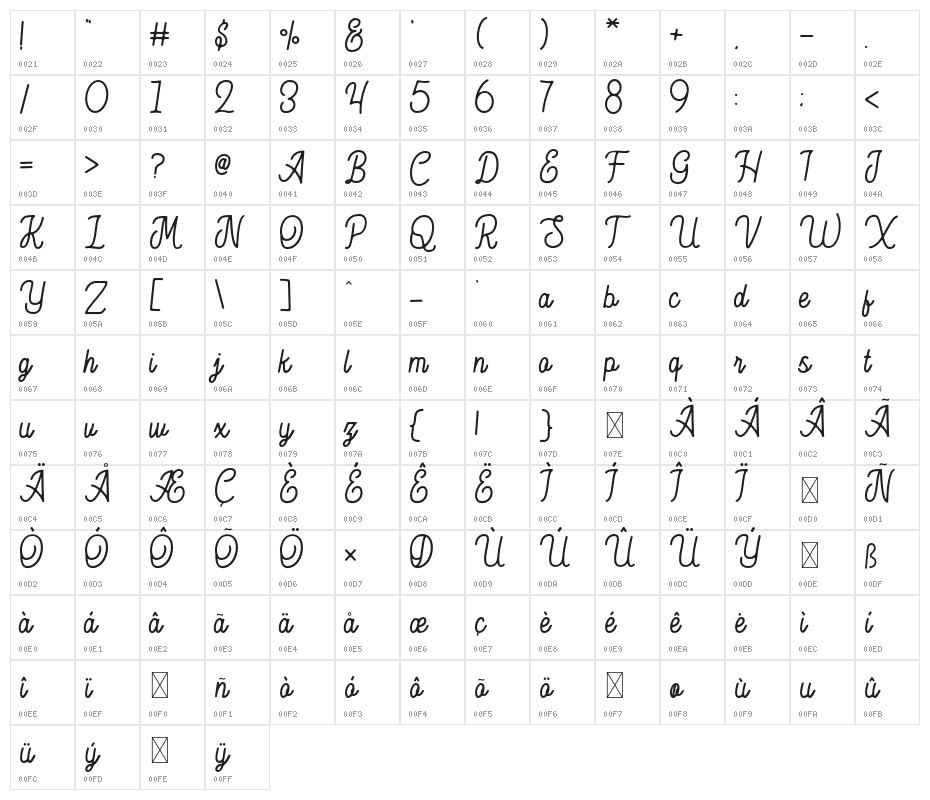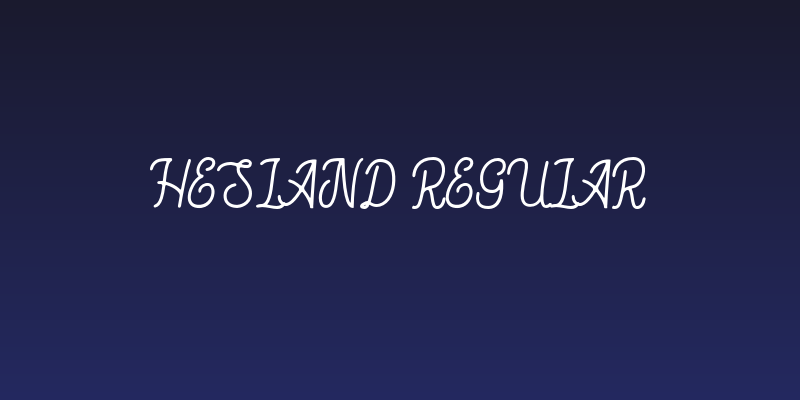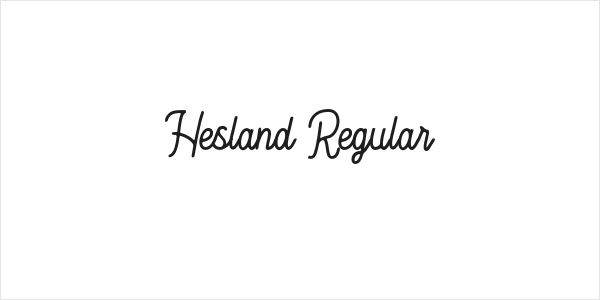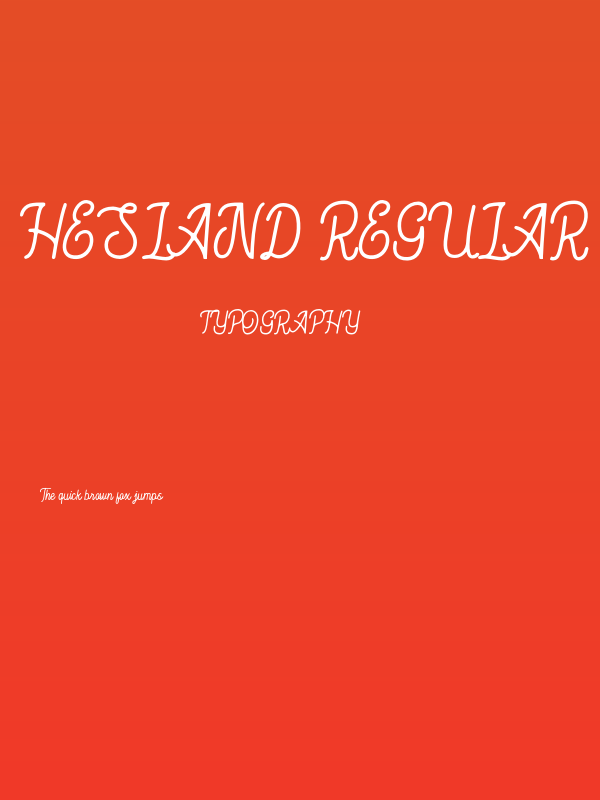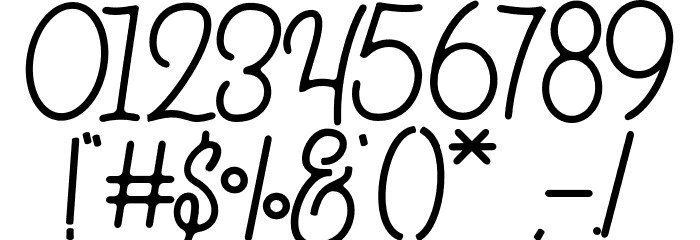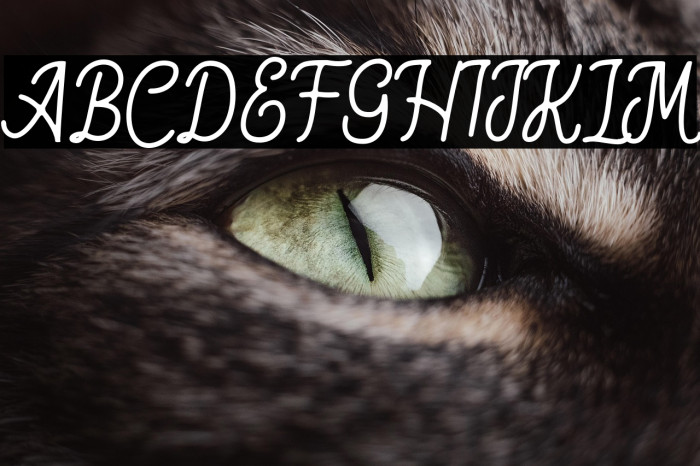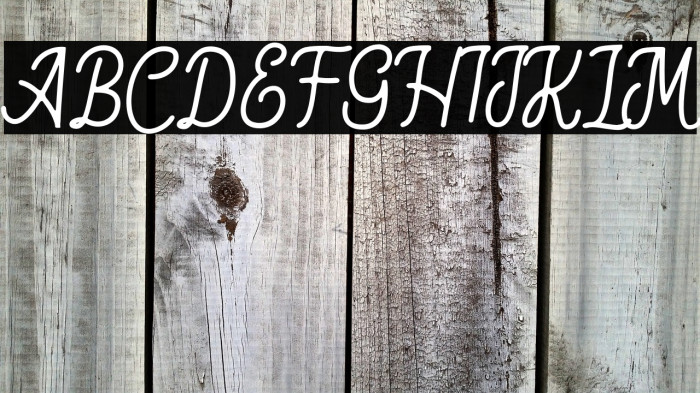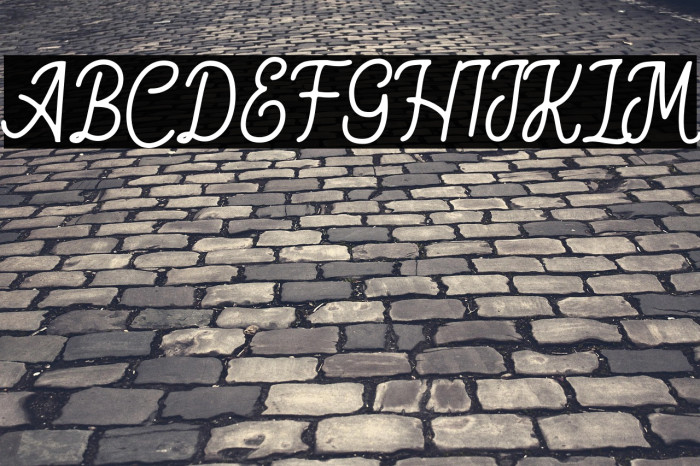
Hesland Regular Font
Hesland Regular Description
This font features a smooth, flowing script style that mimics elegant handwriting. The uppercase letters are characterized by their graceful curves and loops, giving them a sophisticated appearance. The lowercase letters maintain a consistent flow, enhancing readability while preserving the font's decorative nature. Numbers and special characters are designed with the same fluidity, ensuring a cohesive look across all text. The overall impression is one of elegance and charm, making it suitable for projects that require a personal touch.